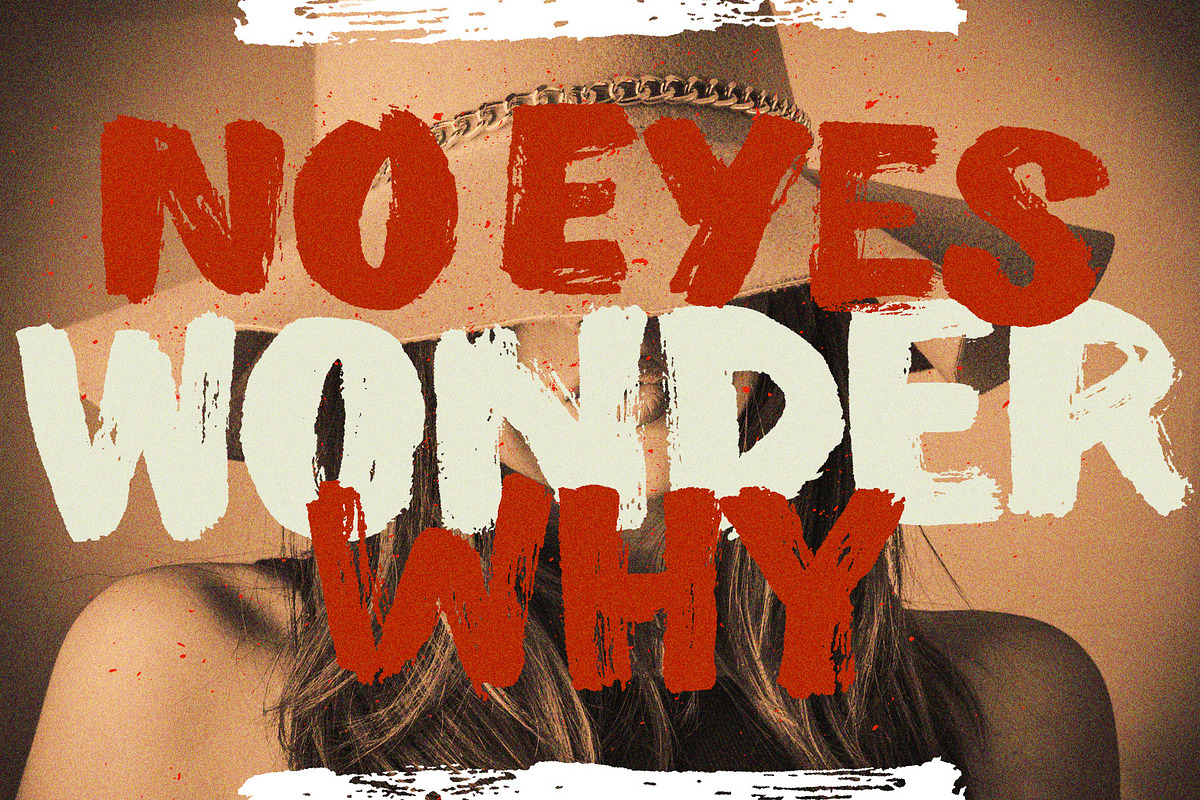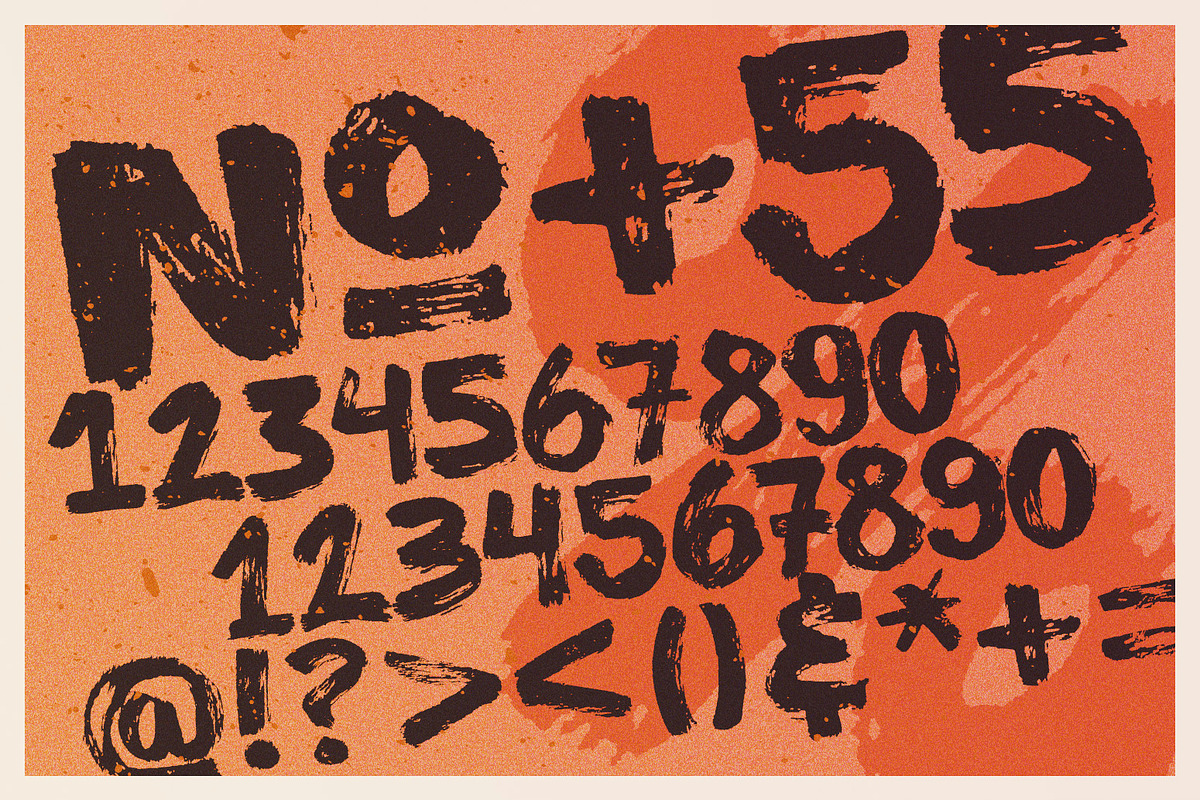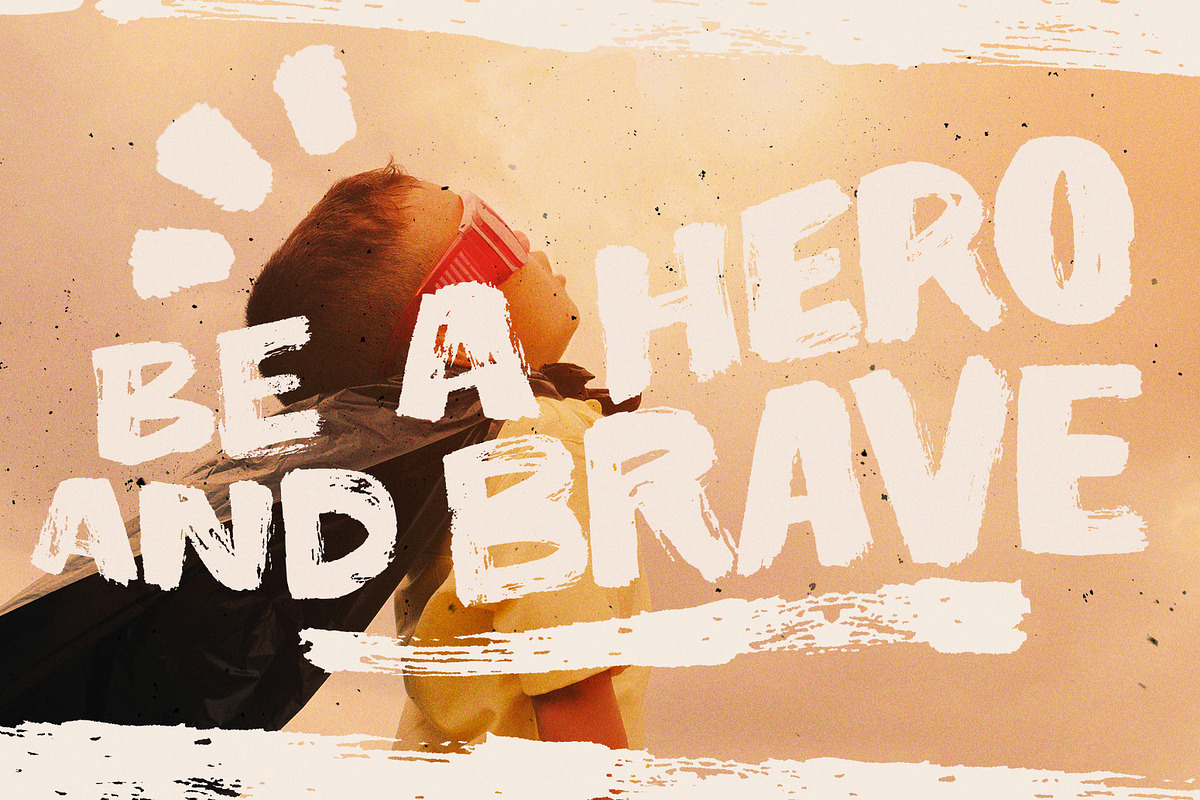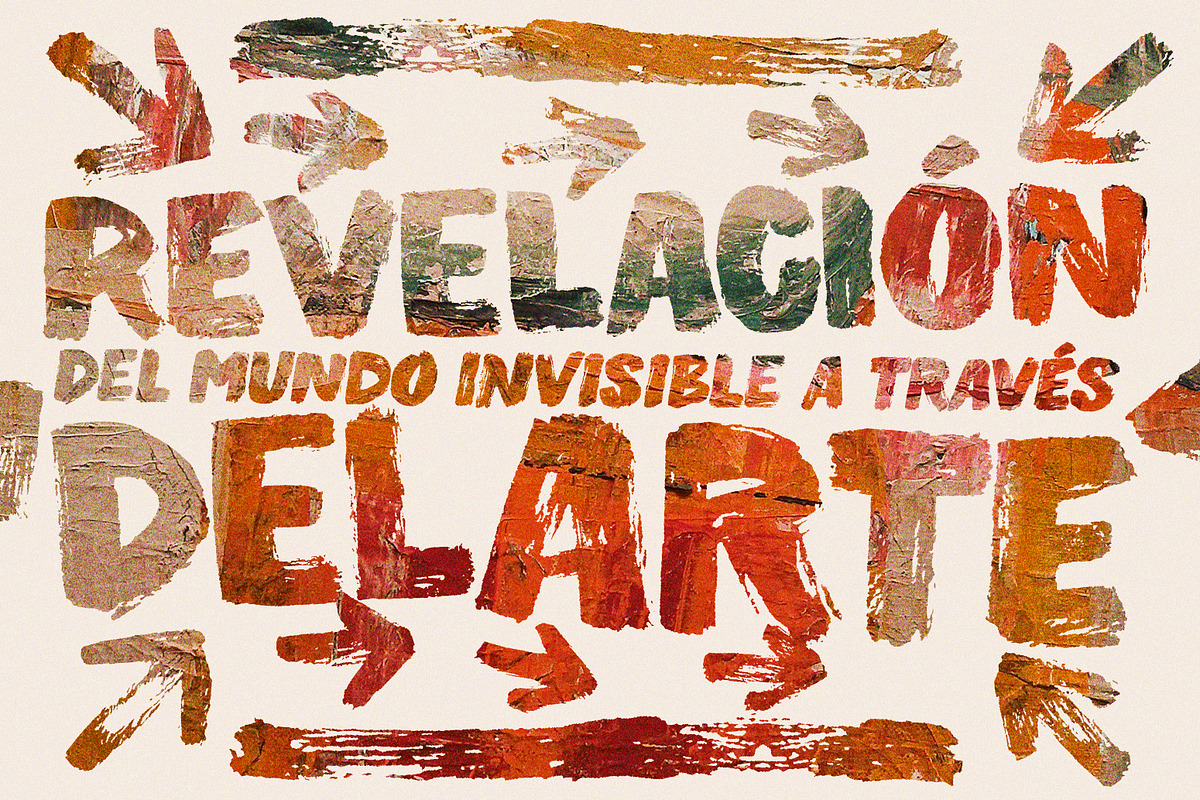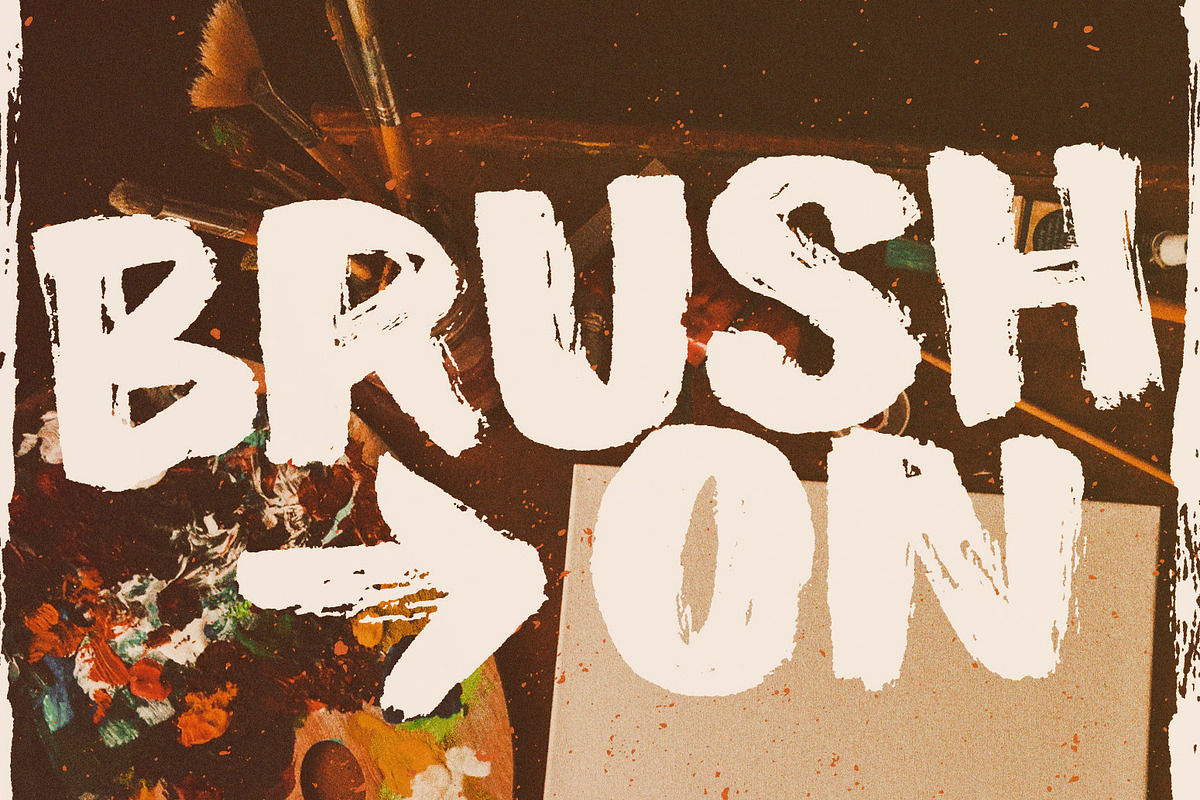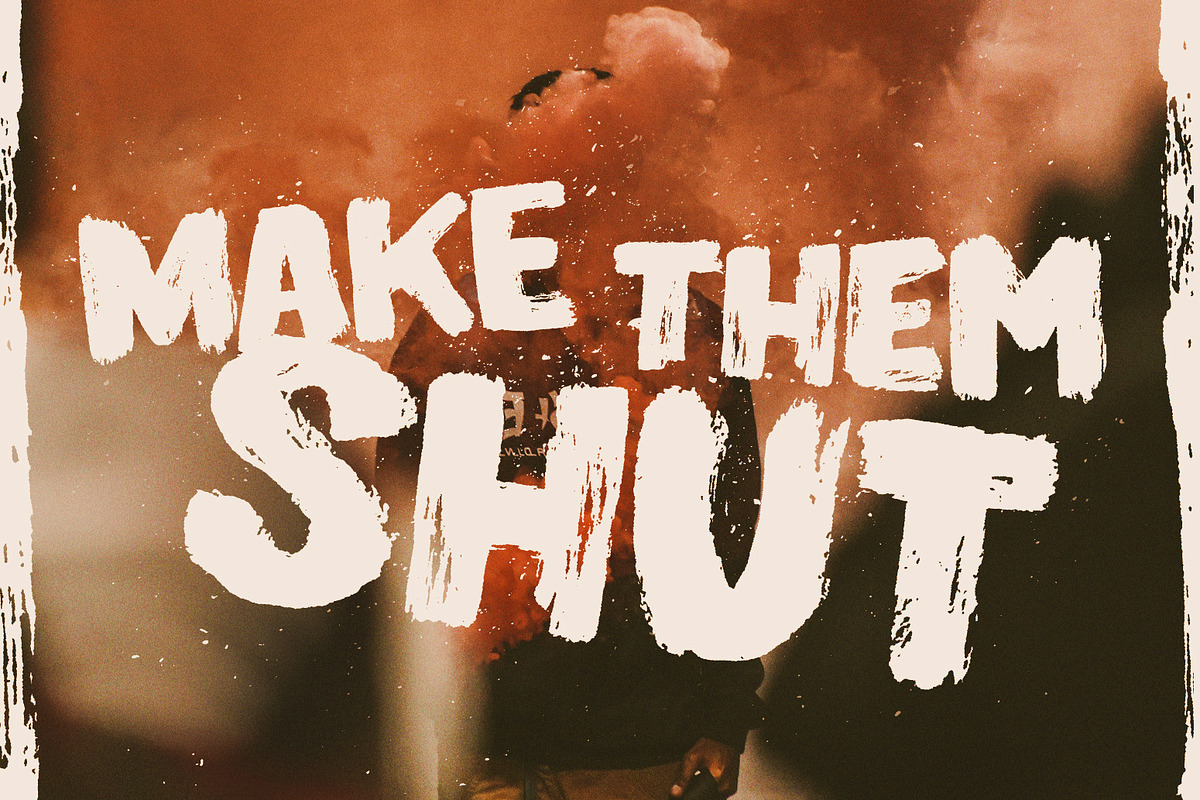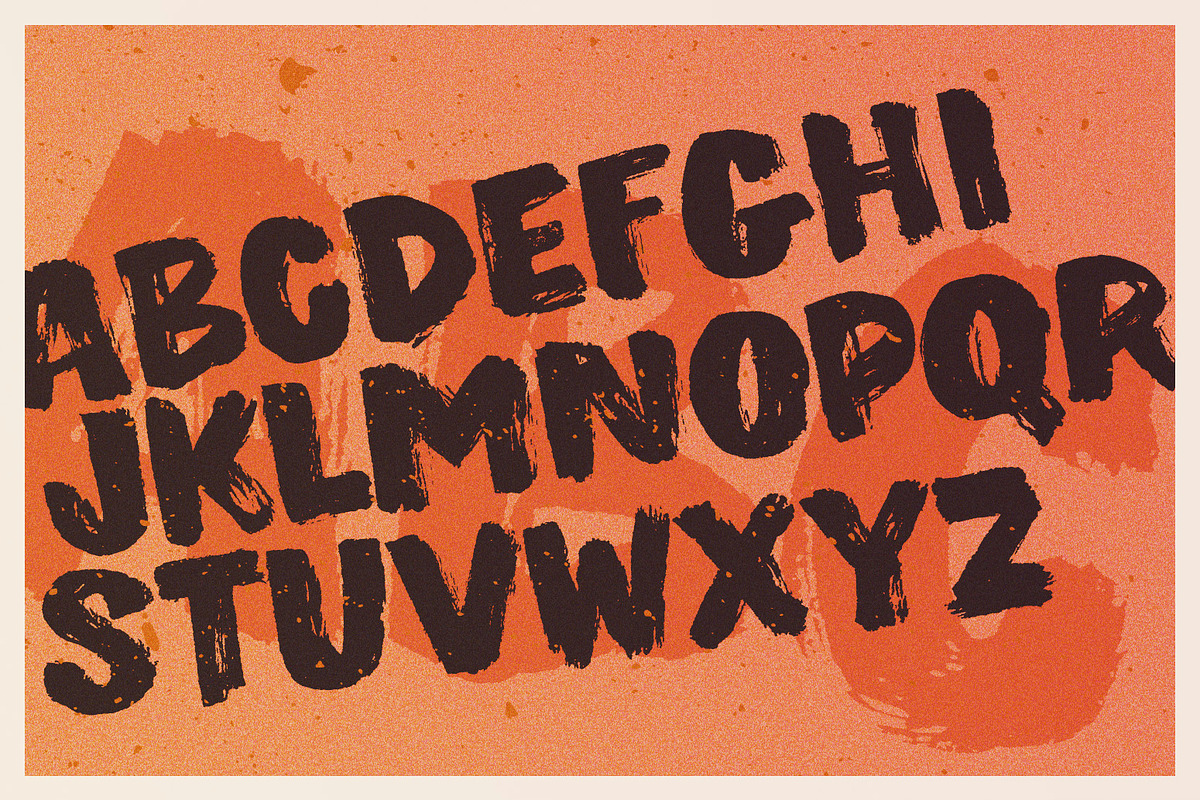
Painterman Brush Font
Painterman is a bold handmade display typeface specially crafted to give a loud voice to your creations. It has an unique design carrying 3 glyphs to each letter, which gives your projects a nice handmade feel. This demands activation of the opentype feature on your software, otherwise the font will only repeat letters. Either way, it looks cool!
Language support: Latin, Western European, Central European and South Western European.